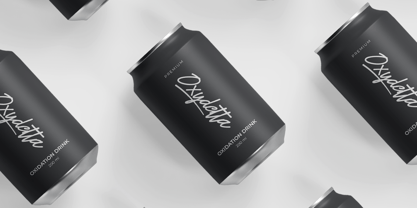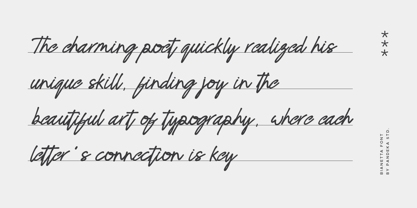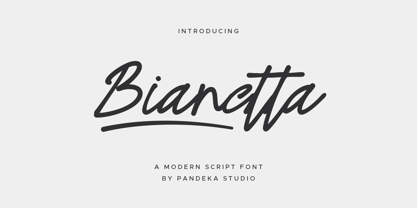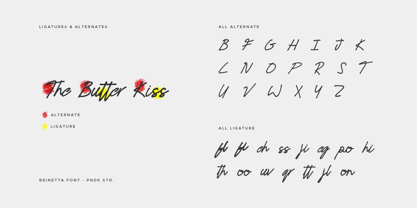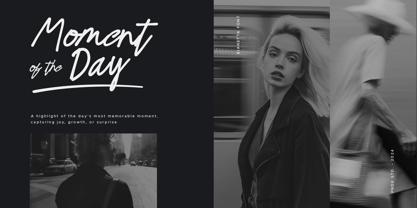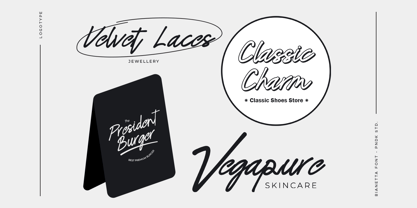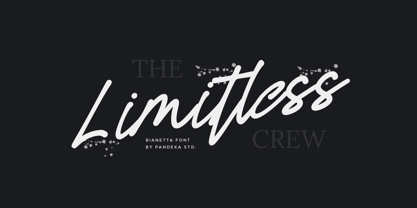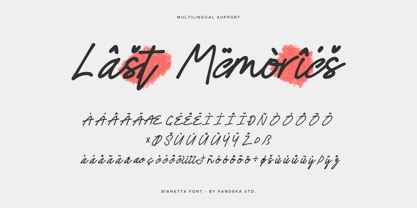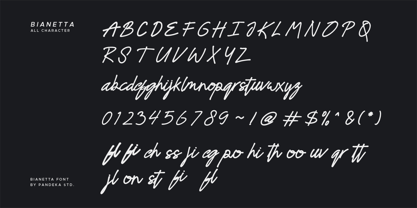
Bianetta
by Pandeka Studio
The Bianetta Font Family was designed by Sagara Nararya and published by Pandeka Studio. Bianetta contains 1 styles. More about this family
Bianetta is a modern script font with elegant lettering and stylish calligraphy, designed to flow effortlessly like smooth handwriting. Featuring chic typography and graceful underline swashes (accessed via "_1" to "_7"), it adds sophistication to any project.
Perfect for logo design, wedding invitations, branding, social media posts, product packaging, and timeless design, Bianetta brings a refined, artistic touch to your creations! ✨